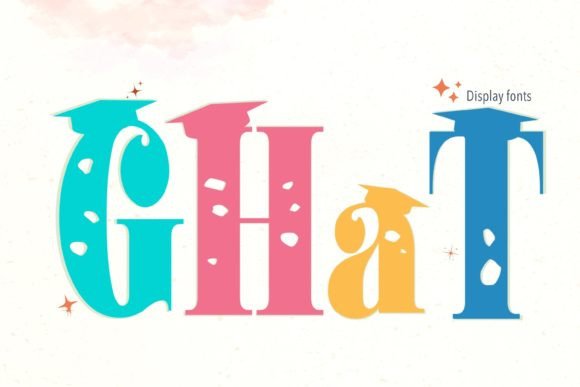
Behold the Power of Expression with G Hat Font - The Quintessential Font for Legal Luminaries
In the realm of legal correspondence, where precision, authority, and a touch of elegance reign supreme, the G Hat Font emerges as a beacon of brilliance. This decorative font, meticulously crafted by the esteemed PJ Fonttein, is not merely a collection of letters; it is an instrument of persuasion, a conduit for ideas, and an emblem of professionalism.
G Hat Font: The Epitome of Legal Authority
In the legal arena, where words carry the weight of justice, the G Hat Font stands as a stalwart sentinel, exuding an aura of authority and gravitas. Its bold strokes, reminiscent of chiseled stone tablets, lend an air of permanence and solidity to your legal documents. With G Hat Font, your legal letters, contracts, and briefs will radiate an unmistakable sense of legitimacy and command attention from the outset.
Beyond its undeniable aesthetic appeal, the G Hat Font is a paragon of functionality. Its meticulously designed characters ensure optimal readability, even in the most complex and intricate legal texts. Its crisp lines and distinct letterforms allow for effortless scanning, enabling readers to navigate through your documents with ease. Whether you're crafting a persuasive legal brief or drafting a meticulously detailed contract, the G Hat Font will elevate your words, ensuring your message is conveyed with clarity and impact.
Ignite Your Creativity with Endless Possibilities
While the G Hat Font excels in the realm of legal correspondence, its versatility extends far beyond the confines of the courtroom. Its playful and authentic nature lends itself seamlessly to a myriad of creative endeavors, from whimsical graduation announcements to vibrant school projects. Let your imagination soar as you explore the boundless possibilities that await with the G Hat Font.
In the world of design, the G Hat Font is a veritable chameleon, effortlessly adapting to a kaleidoscope of styles and themes. Its bold lines and playful curves bring a touch of whimsy to invitations, posters, and branding materials. With the G Hat Font, your designs will exude a unique charm and personality that will captivate your audience and leave a lasting impression.
A Testament to Craftsmanship and Passion
The G Hat Font is a testament to the unwavering dedication and passion of its creator, PJ Fonttein. Every stroke, every curve, and every nuance has been meticulously crafted to ensure the font's unwavering quality and exceptional performance. PJ Fonttein's artistry shines through in every character, imbuing the G Hat Font with a life and vitality that is simply breathtaking.
Experience the G Hat Font and Unleash Your Inner Brilliance
The G Hat Font is more than just a font; it's an extension of your creativity, a tool to unlock your full potential. Whether you're a seasoned legal professional or an aspiring artist, the G Hat Font will elevate your work to new heights, leaving an indelible mark on your audience. Embrace the power of expression and embark on a journey of creative exploration with the G Hat Font.